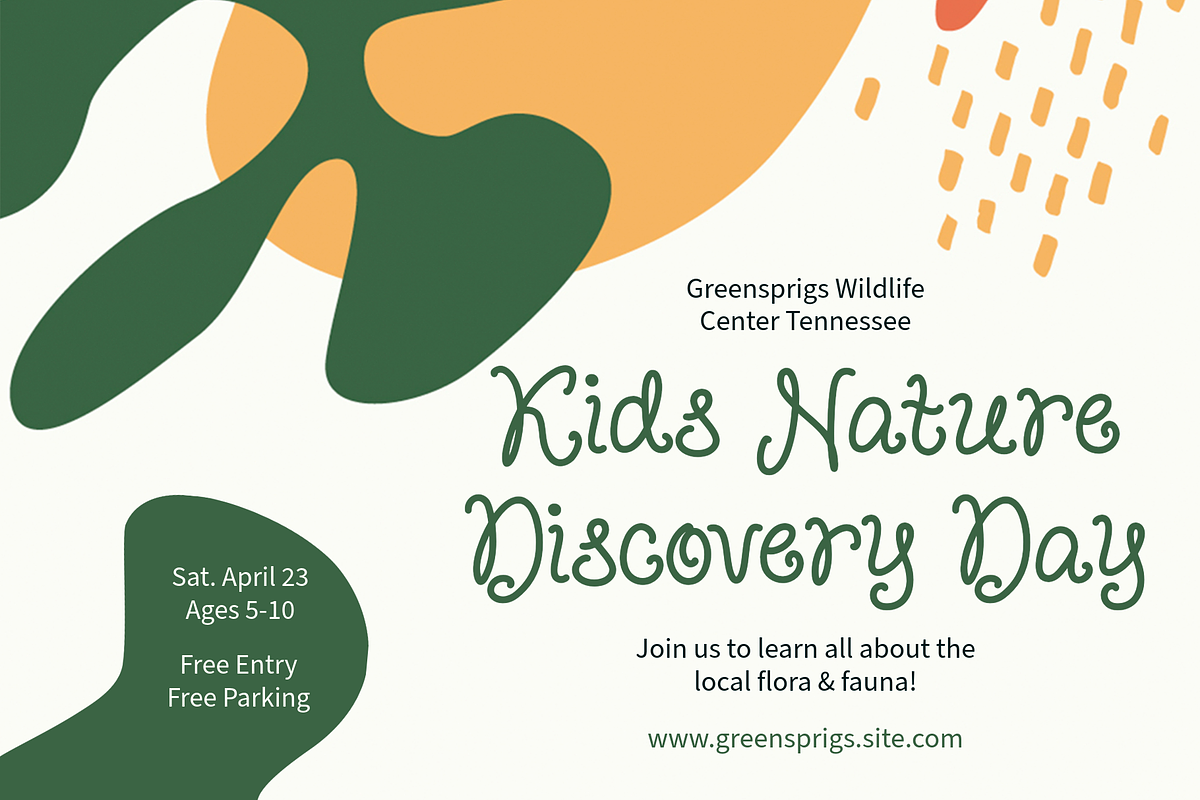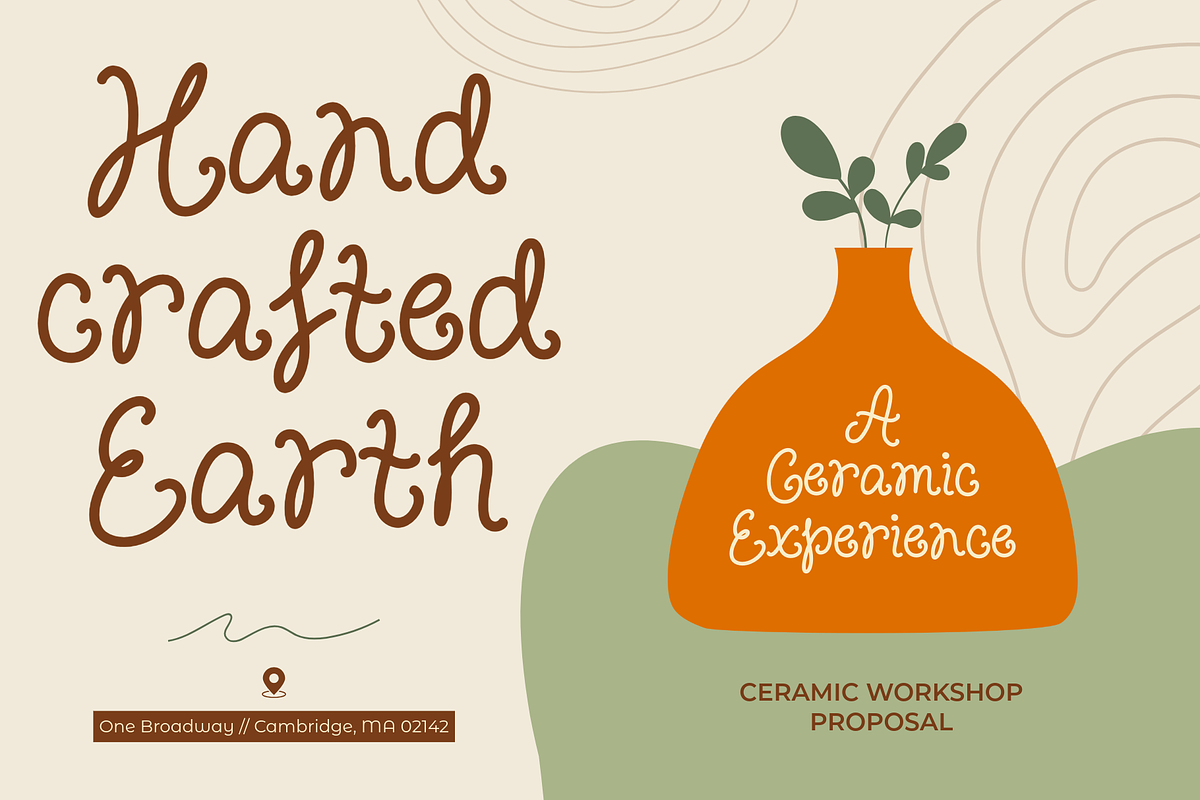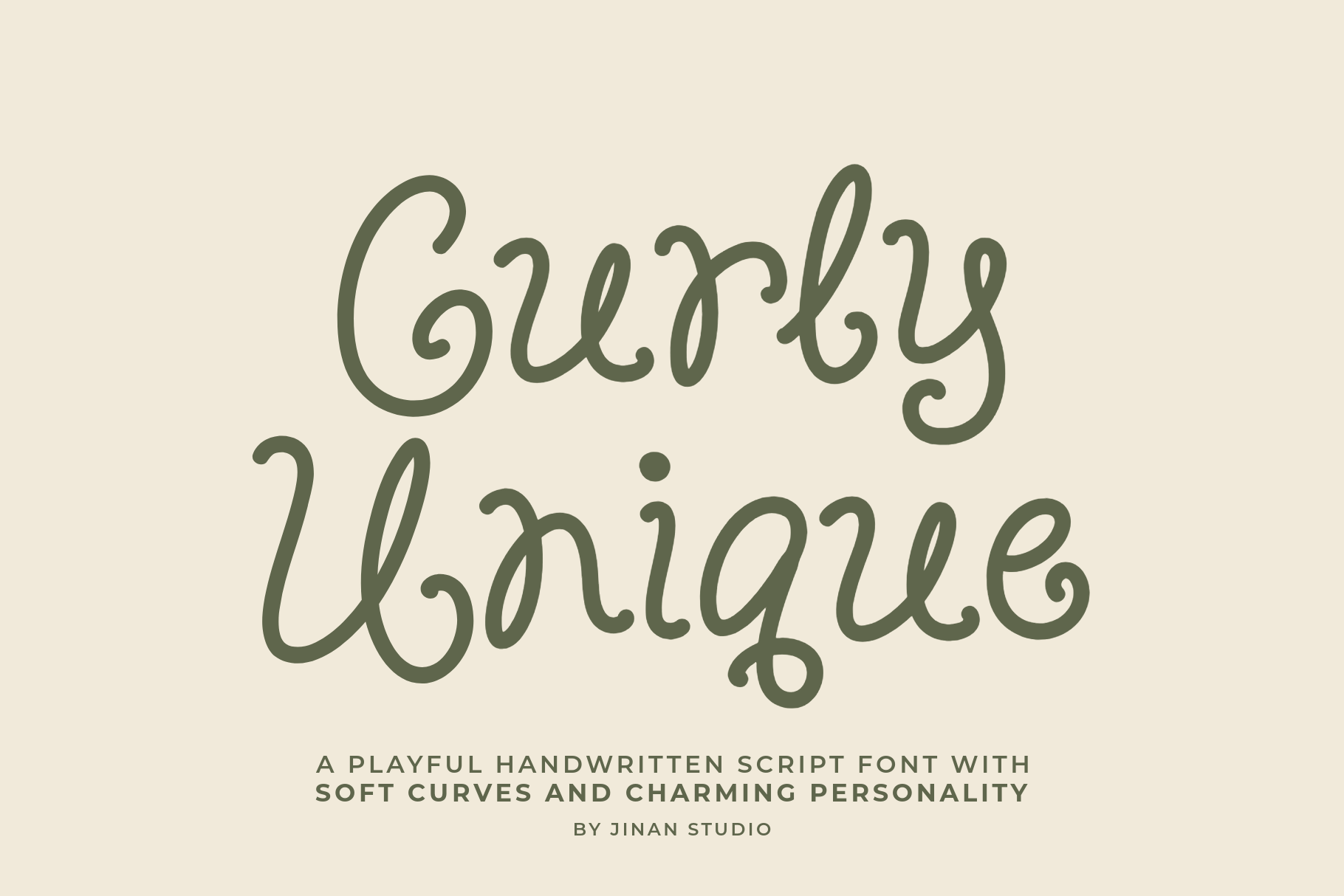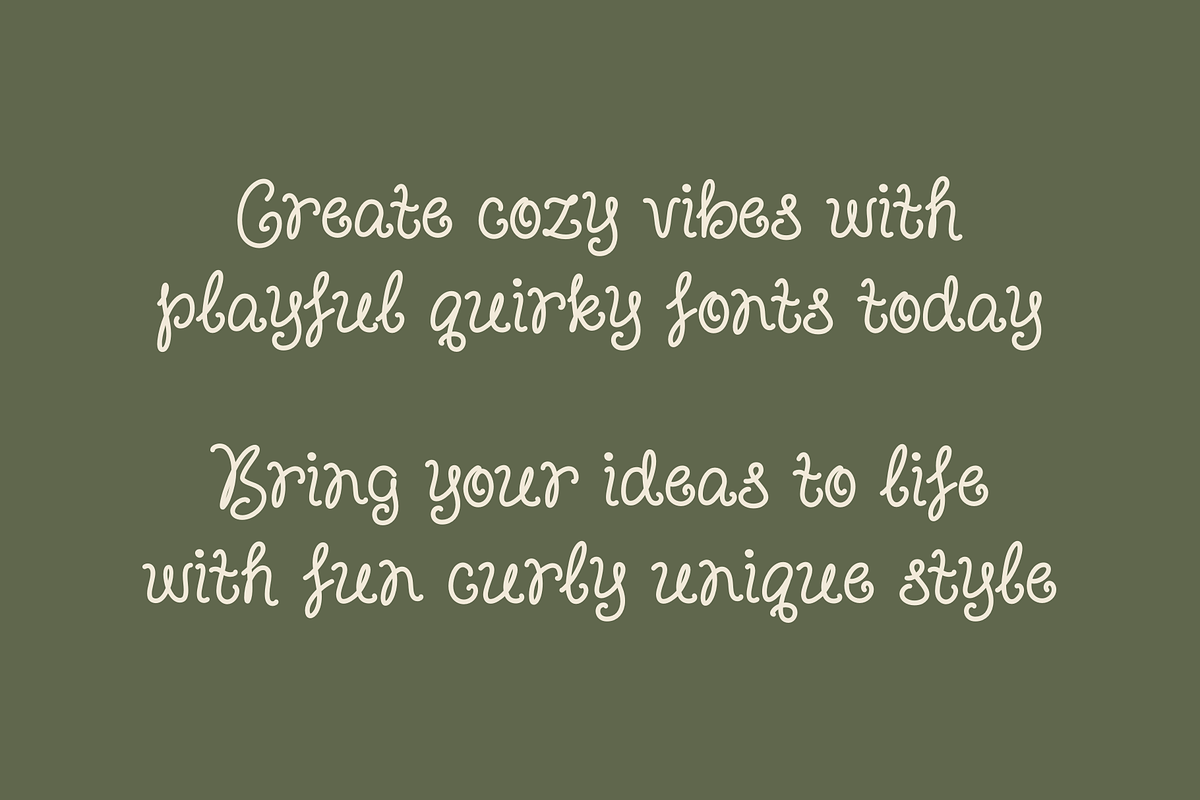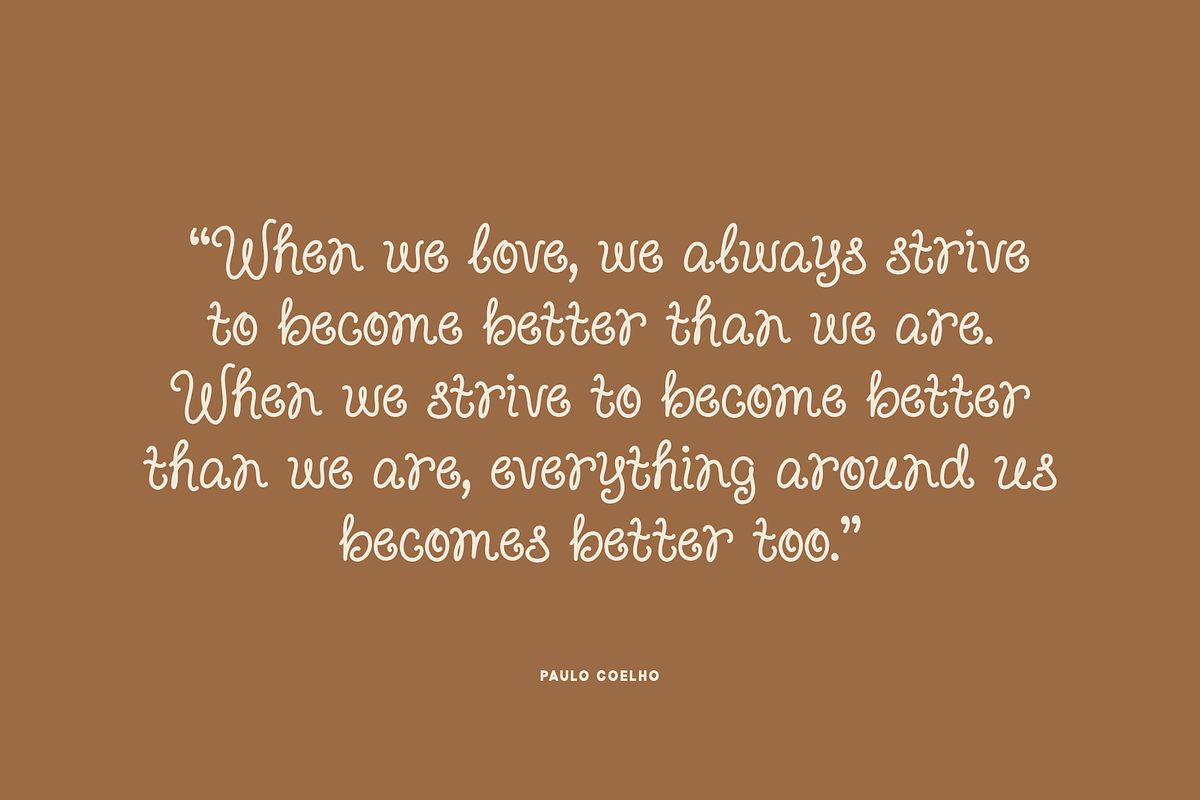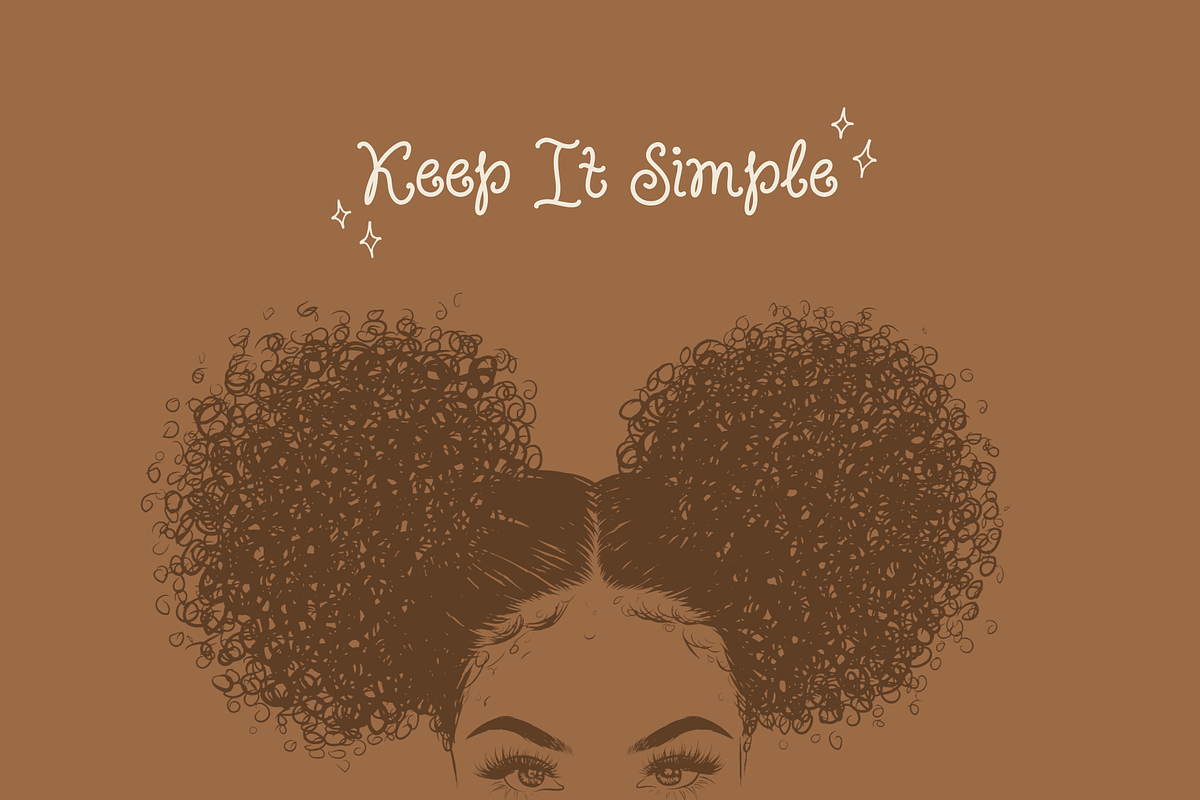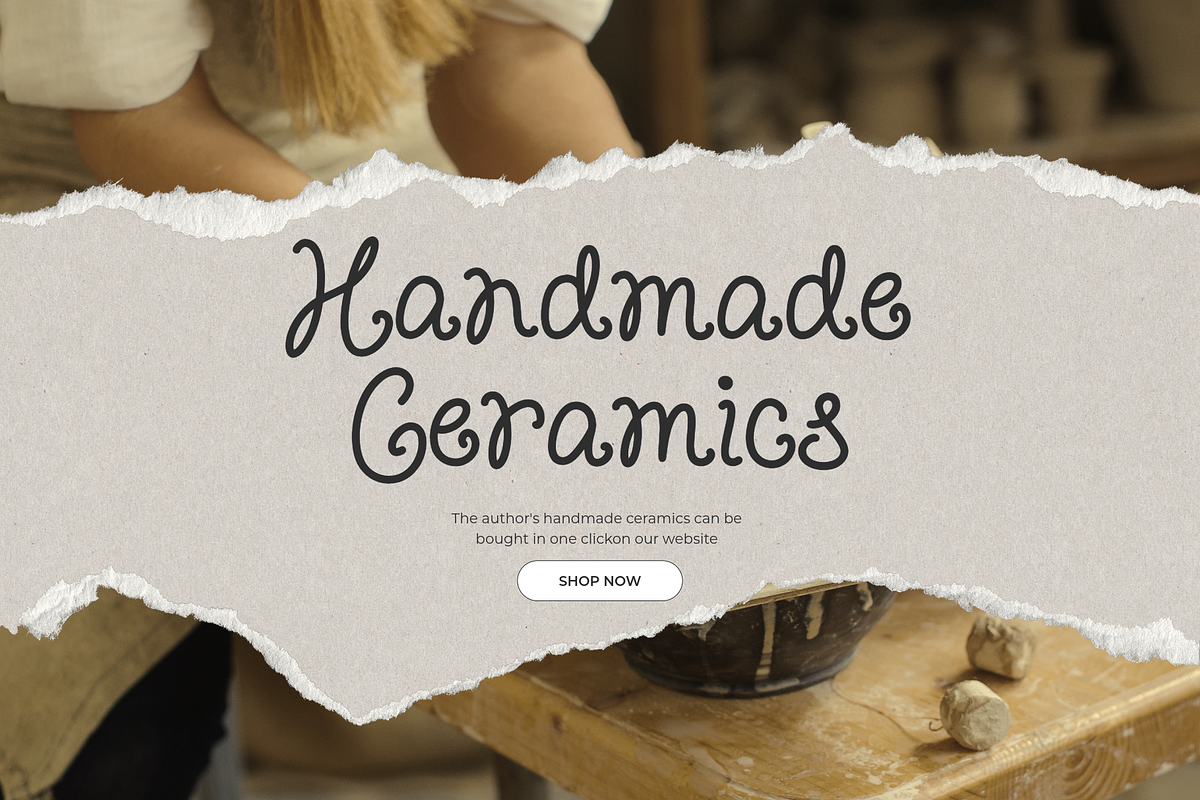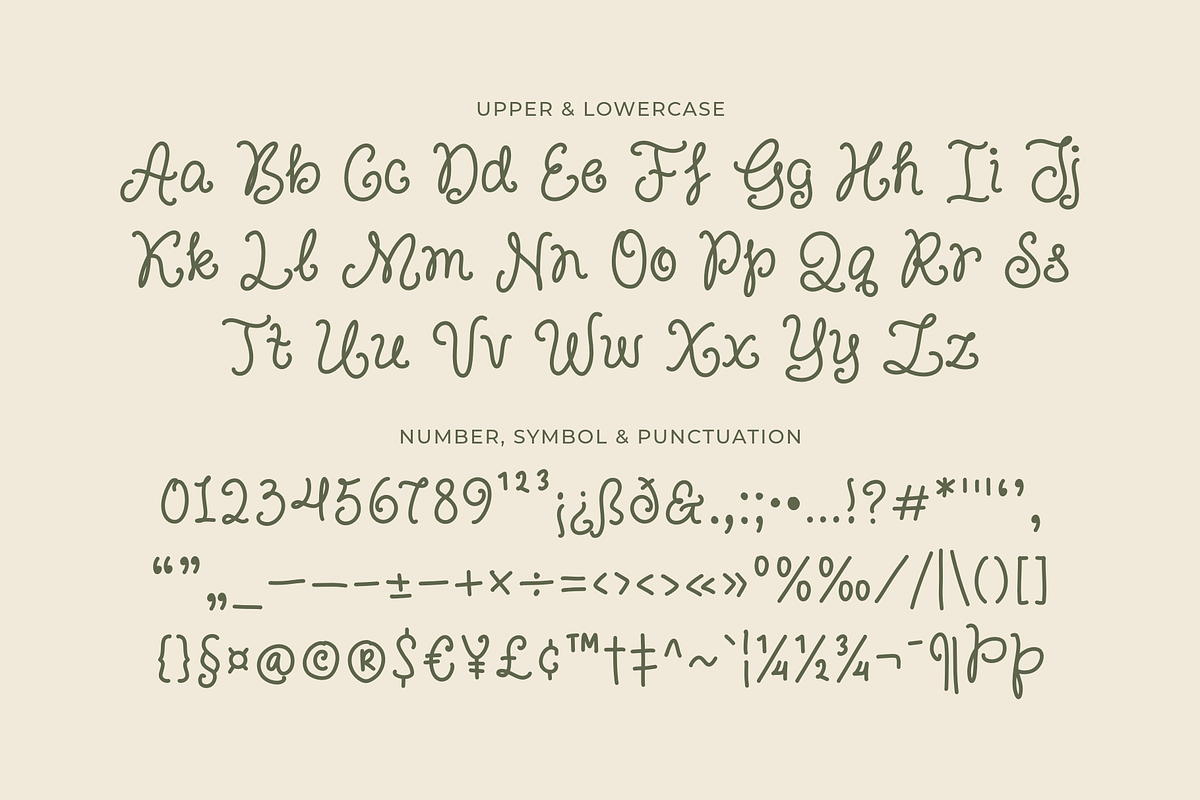
Curly Unique - A Playful Script Font
Curly Unique is a playful handwritten script font with soft curves and charming personality. Designed with smooth, flowing strokes and subtle whimsical details, this font brings a warm and friendly feel to any design. Its natural, slightly imperfect letterforms create an authentic handwritten look—perfect for projects that need a personal and inviting touch.
Whether you’re working on branding, packaging, social media, or creative crafts, Curly Unique adds a delightful and expressive vibe that feels both modern and approachable.
- A set of uppercase and lowercase glyphs
- Number, symbol, and punctuation